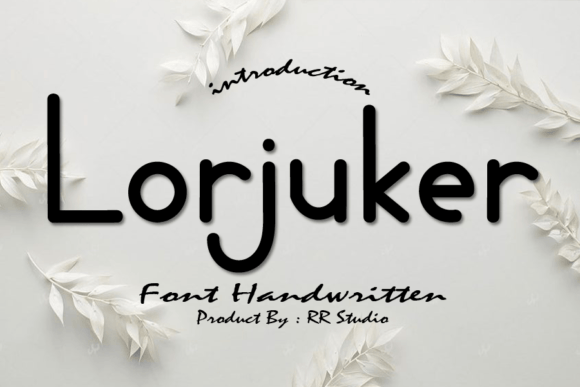
Lorjuker Font
About Lorjuker Font
“Lorjuker” is a charming and cursive handwritten font that exudes sweetness and elegance. Its gentle and flowing characters make it a perfect choice for a wide array of design projects, adding a touch of joy and romance to each creation.
This delightful font is particularly well-suited for applications such as wedding invitations, thank-you cards, quotes, greeting cards, logos, and business cards, among others. Its cursive style adds a handwritten touch, infusing your designs with a warm and personal feel. Whether you’re crafting elegant wedding stationery or heartfelt greeting cards, “Lorjuker” enhances the overall aesthetic, making your projects visually stunning.
The font’s gentle and romantic essence makes it a versatile choice for various creative endeavors. Its elegant curves and smooth lines create a harmonious flow, capturing the essence of sophistication and grace. “Lorjuker” allows you to convey emotions and sentiments effectively, making it an ideal option for projects that require a touch of tenderness and romance.
Incorporating “Lorjuker” into your designs enables you to infuse them with a joyful and romantic atmosphere. Its cursive and sweet nature adds a delightful charm, making your creations stand out. Embrace the font’s elegance and let it enhance your wedding invitations, thank-you notes, quotes, and other designs, ensuring they radiate a heartfelt and romantic vibe that resonates with your audience.